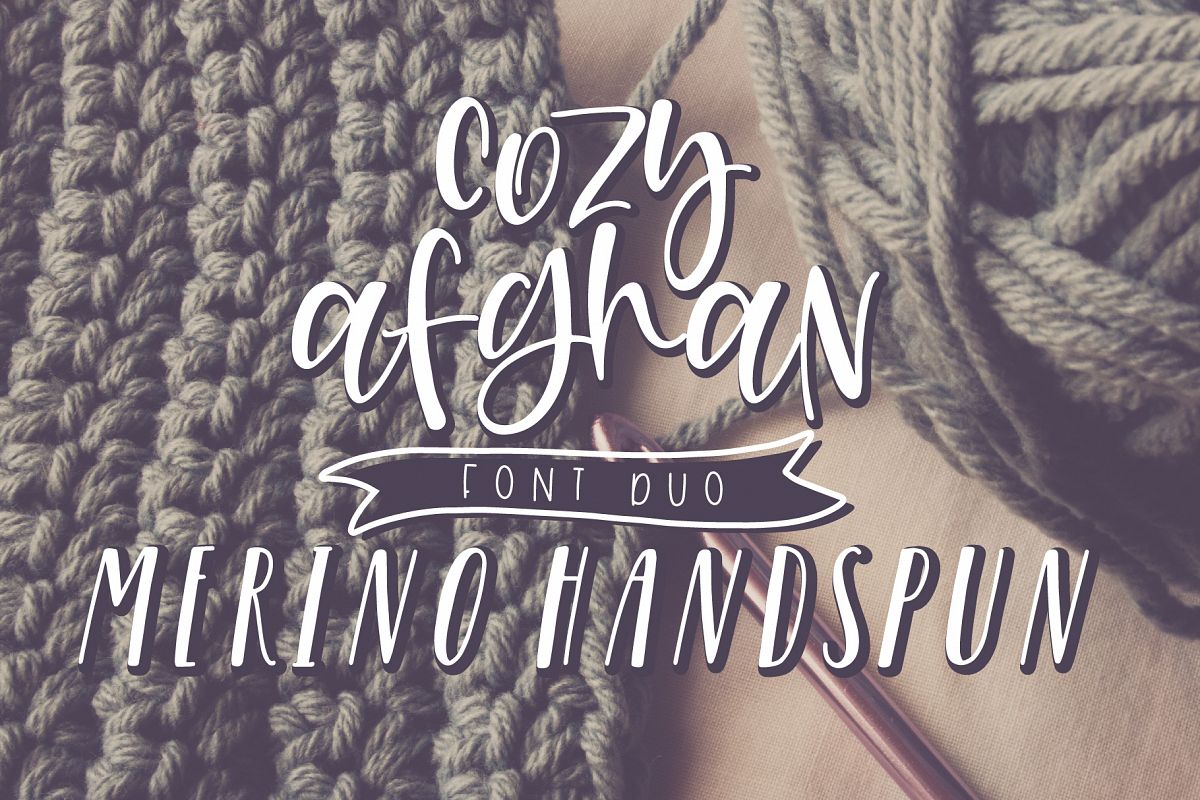
Cozy Afghan Font Duo
CozyAfghan-Regular
MerinoHandspun-Regular
There is always something nice about a fun and quirky script paired with a simpler italicized print. Meet Cozy Afghan & Merino Handspun. Both fonts were hand lettered and include A-Z (Cozy Afghan is a mixed case font, Merino is an all caps font), 0-9, Punctuation as well as accented characters.